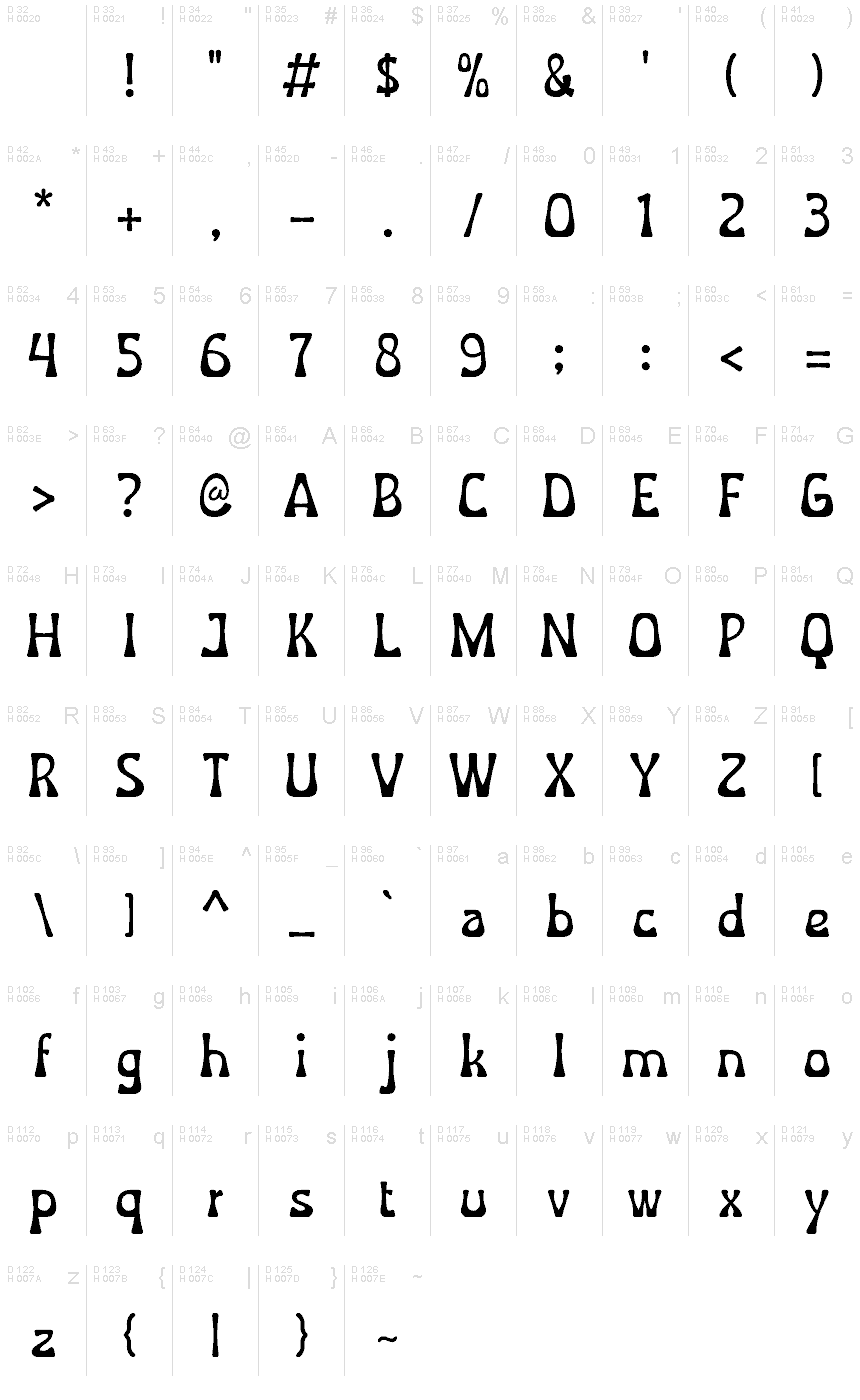
MONOLOSE
Monolose font by Typeline Studio is a groovy display typeface with a nostalgic, retro-inspired design. Bringing in old-school vibes in this modern-day and age, Monolose has all that’s needed to give your ideas the edge they deserve; it’s quirky, stylishly distressed, and carries forth a casual vibe with each letter and word typed.
This free display font rocks any header of magazines or posters as much as it attracts attention in restaurant menus. Render company profiles written content engaging using Monolose and pay extra importance to even the smallest of details such as the usual boring invoice. Whether you’re working on advertising banners, product packaging/labels design, or simply social media content which so many love these days – remember that every project is another chance for achieving greatness!